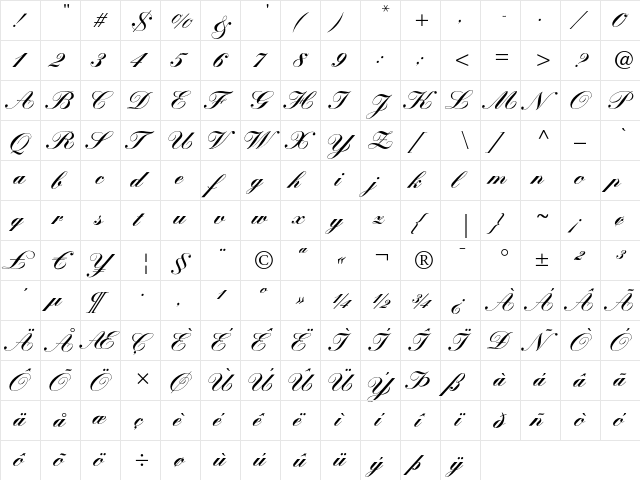
Kuenstler Script LT Black Font Preview
Kuenstler Script LT Black
Kuenstler Script LT Black Font Details
Design Context for Kuenstler Script LT Typeface
Kuenstler Script LT brings a calligraphic fluidity to the page — its connecting strokes and expressive curves give it an unmistakably human quality. The delicate stroke weight brings airiness and refinement to layouts.
Font Pairing: Combine Kuenstler Script LT with a simple geometric sans for maximum contrast — the tension between flowing curves and clean structure is a classic typographic pairing.
Pro Tip: Use Kuenstler Script LT for short runs of text — names, titles, or taglines. Extended body copy in script faces tires the eye quickly.